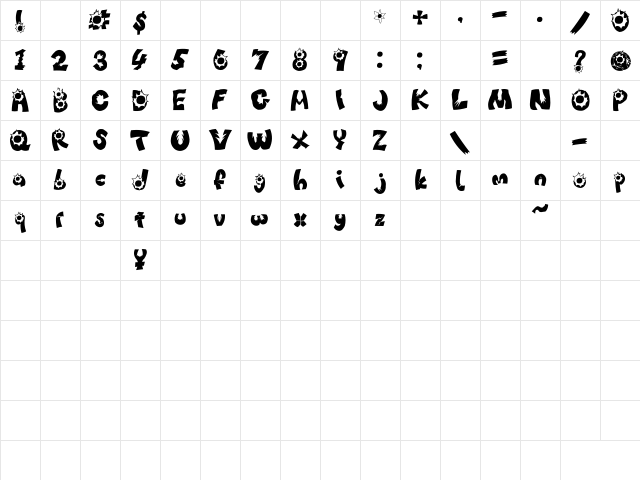
After_Attack Regular Free Font
After_Attack Regular
Design Context for After_Attack
After_Attack is a composed and adaptable typeface that performs quietly and consistently across a wide range of design contexts.